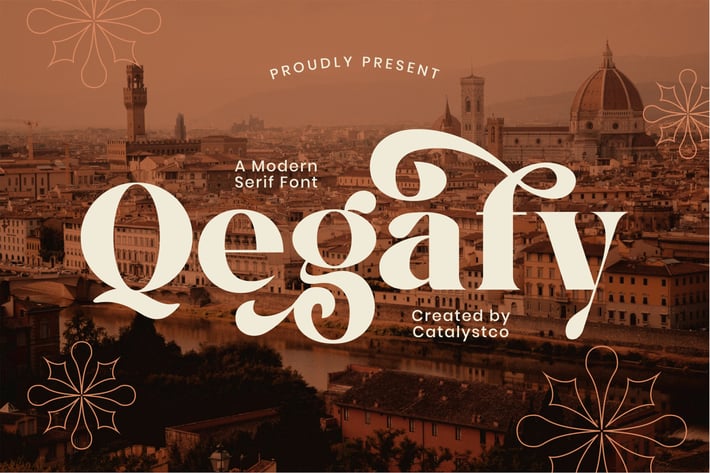
Qegafy Modern Serif Font
Qegafy Modern Serif Font Fontis a modern serif font that blends elegance with strong visual presence. Its smooth curves and refined details make it perfect for luxury brand design, editorial layouts, and signature logo work. The font’s feminine and decorative touches position it as a go-to choice for premium font applications, including wedding fonts, beauty packaging, and high-end branding. With a stylish balance between elegant serif tradition and modern visual flair, Qegafy supports both expressive typography and professional font needs in fashion and creative industries.
Ligatures & Alternate
Numeral & Punctuations